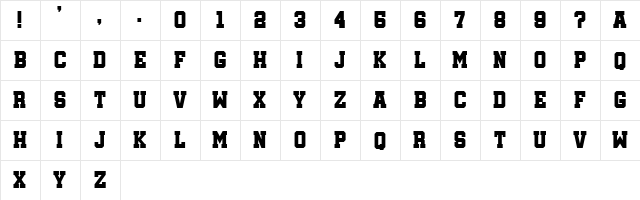
Soccer League Regular
Design Context for Soccer League Typeface
Soccer League takes a measured approach to typography — its balanced proportions and neutral character make it a reliable workhorse for both digital and print work.